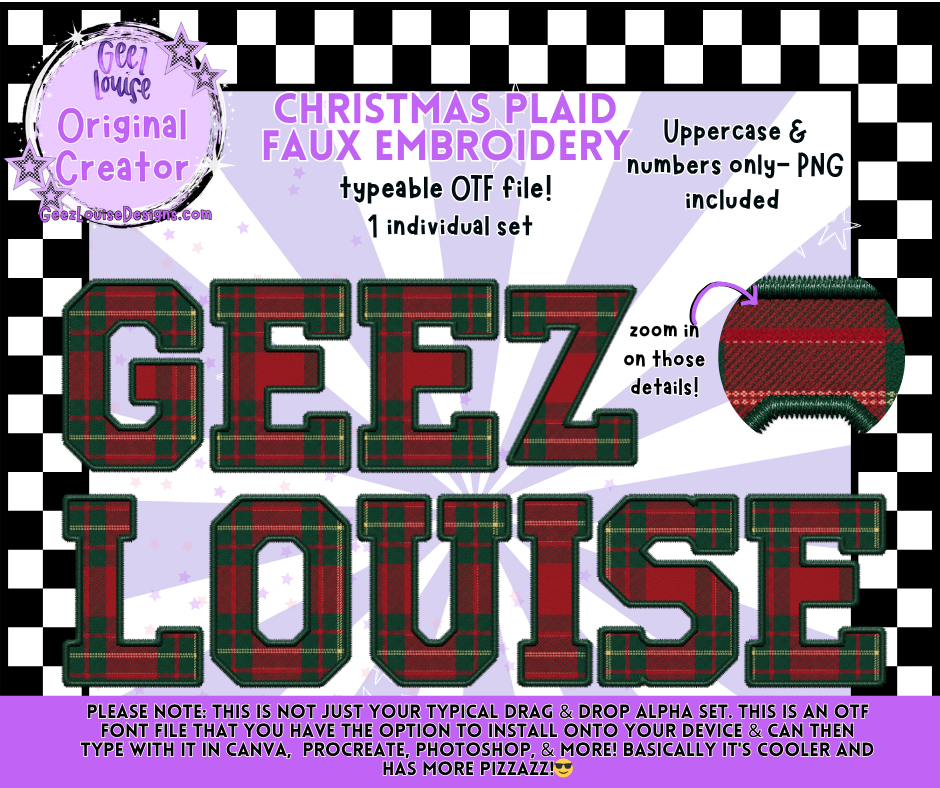
Bring classic holiday charm to your projects with the Christmas Plaid Faux Embroidery Alpha!
This festive alpha features cozy plaid textures and embroidered edges — perfect for giving your designs that handmade Christmas feel. Whether you’re creating apparel, décor, or digital graphics, this font adds instant warmth and holiday flair.
Realistic stitched embroidery details
This isn’t your typical alpha — it’s a typeable OTF font that combines cozy plaid and faux embroidery texture for the perfect festive touch!